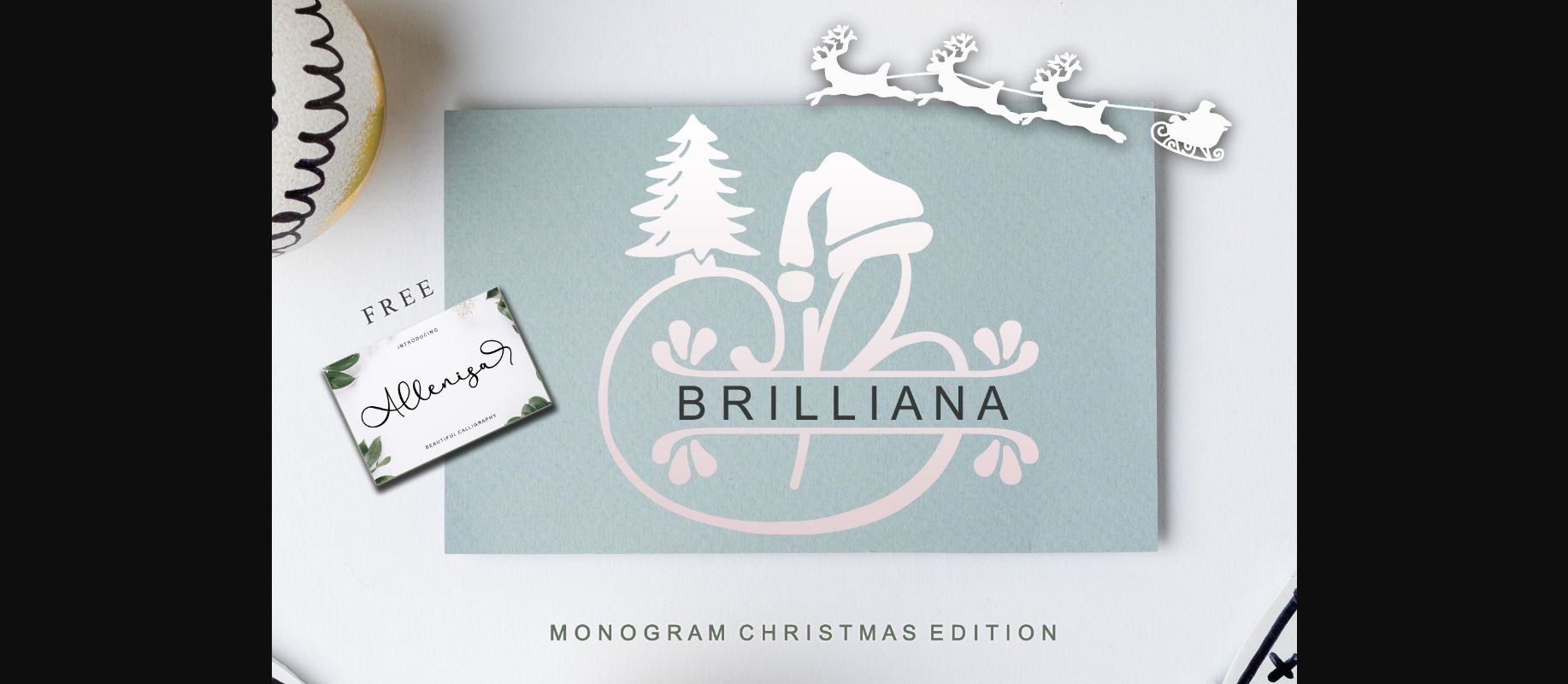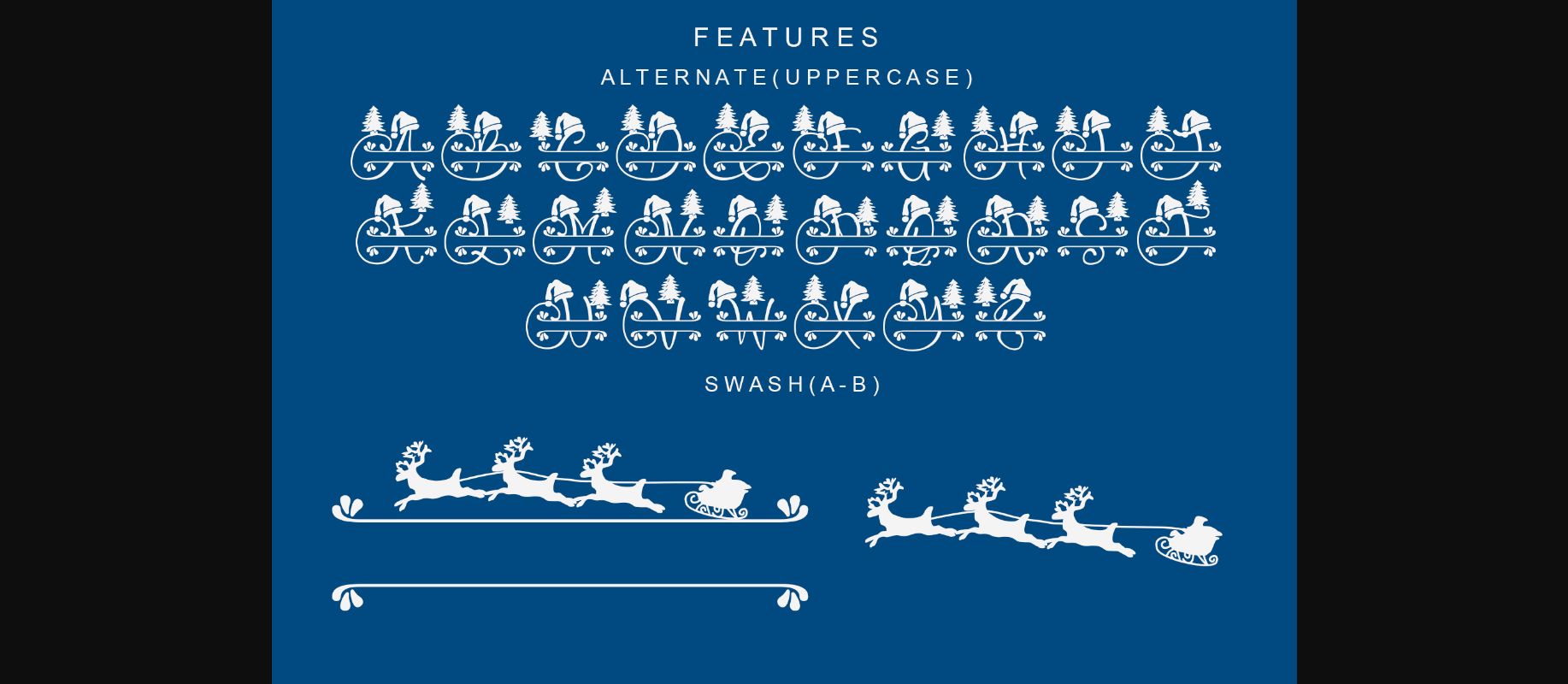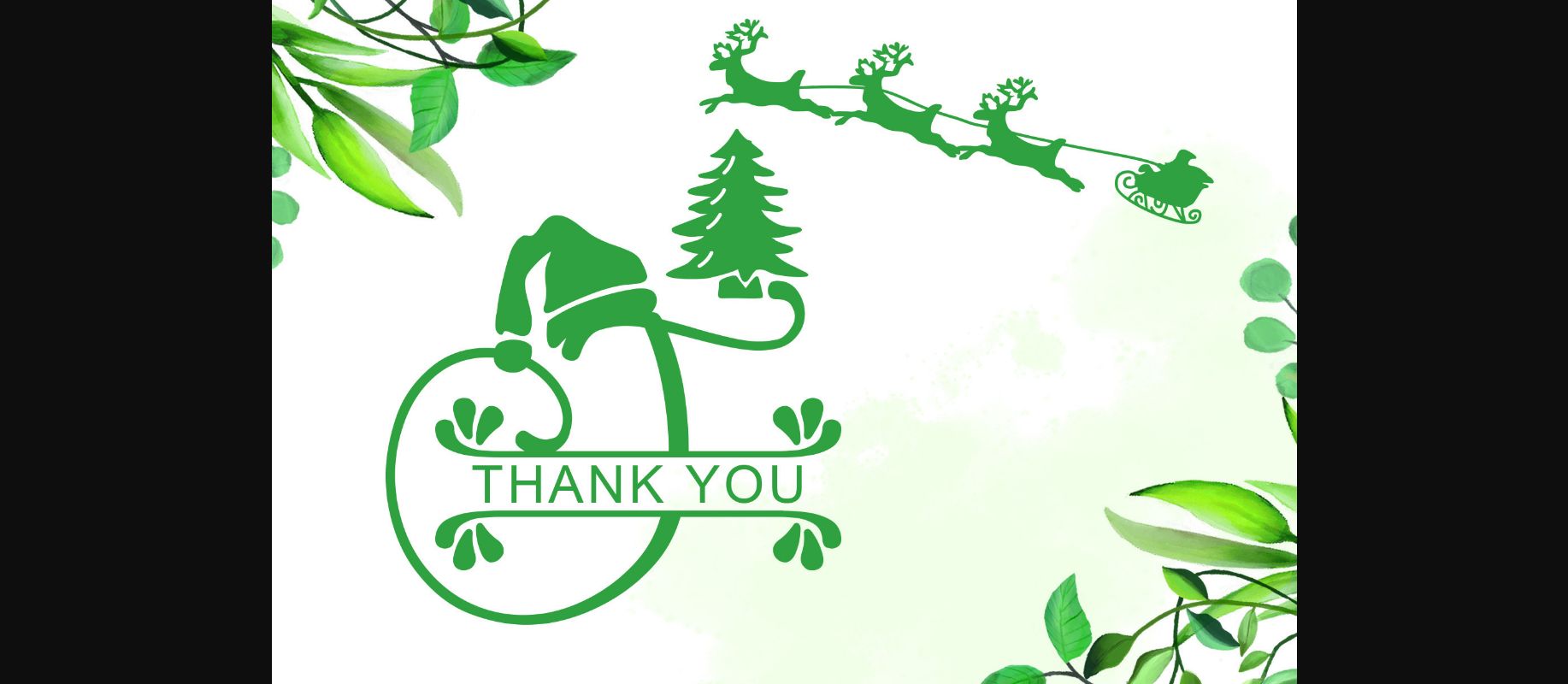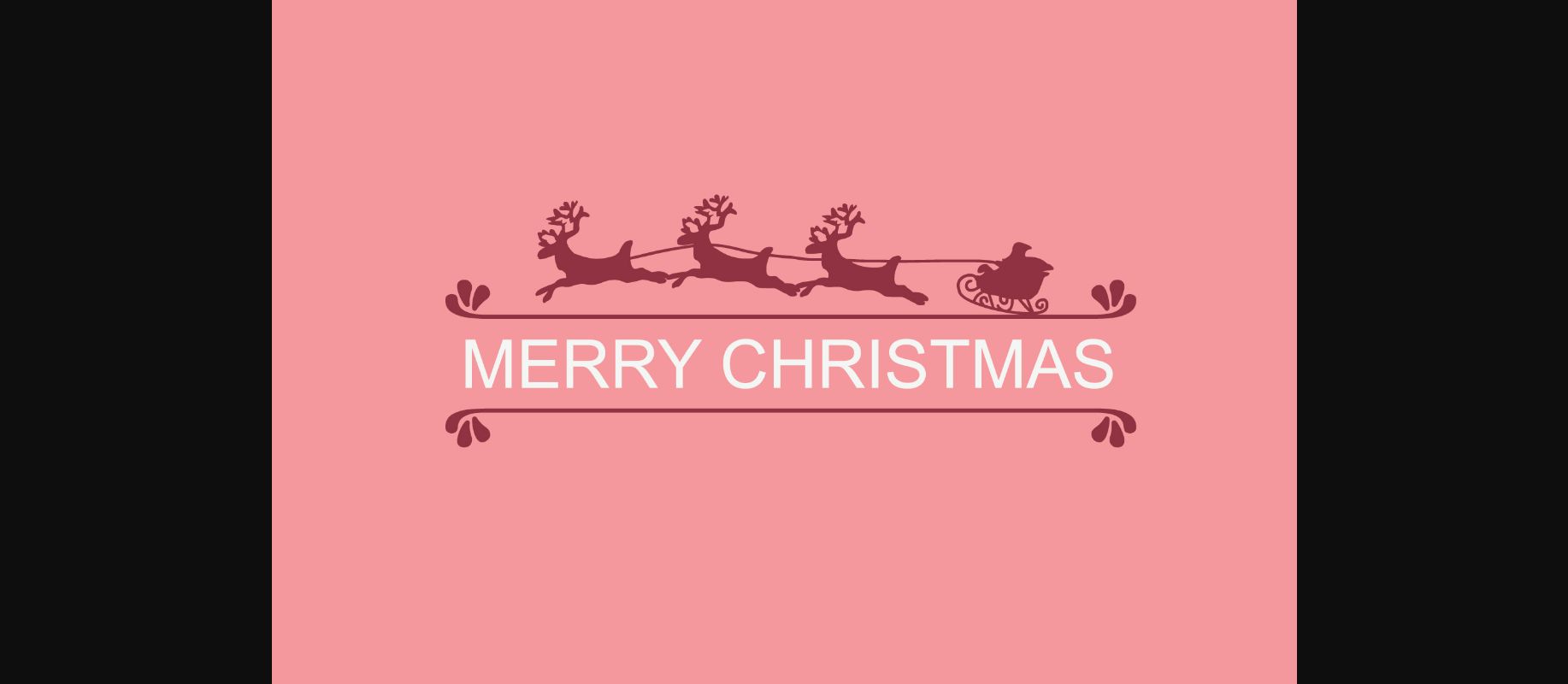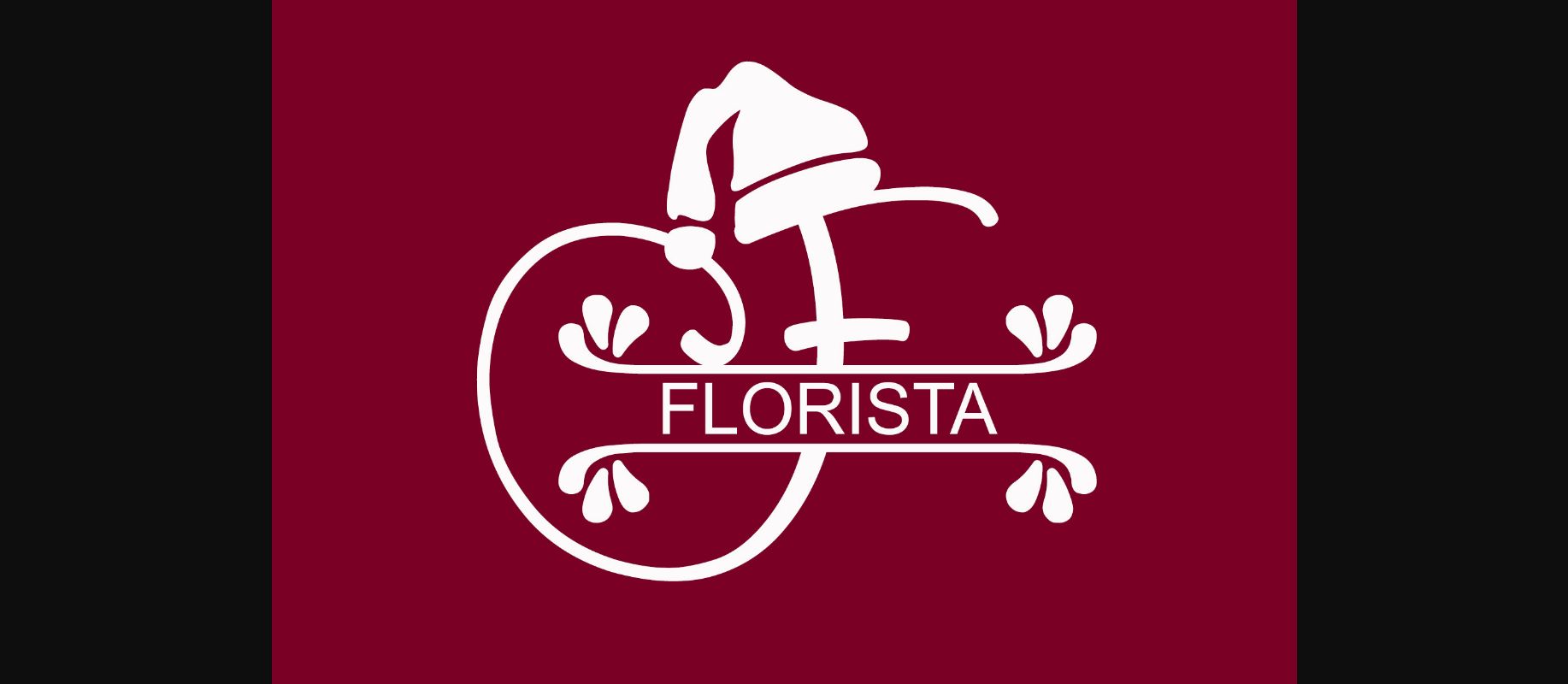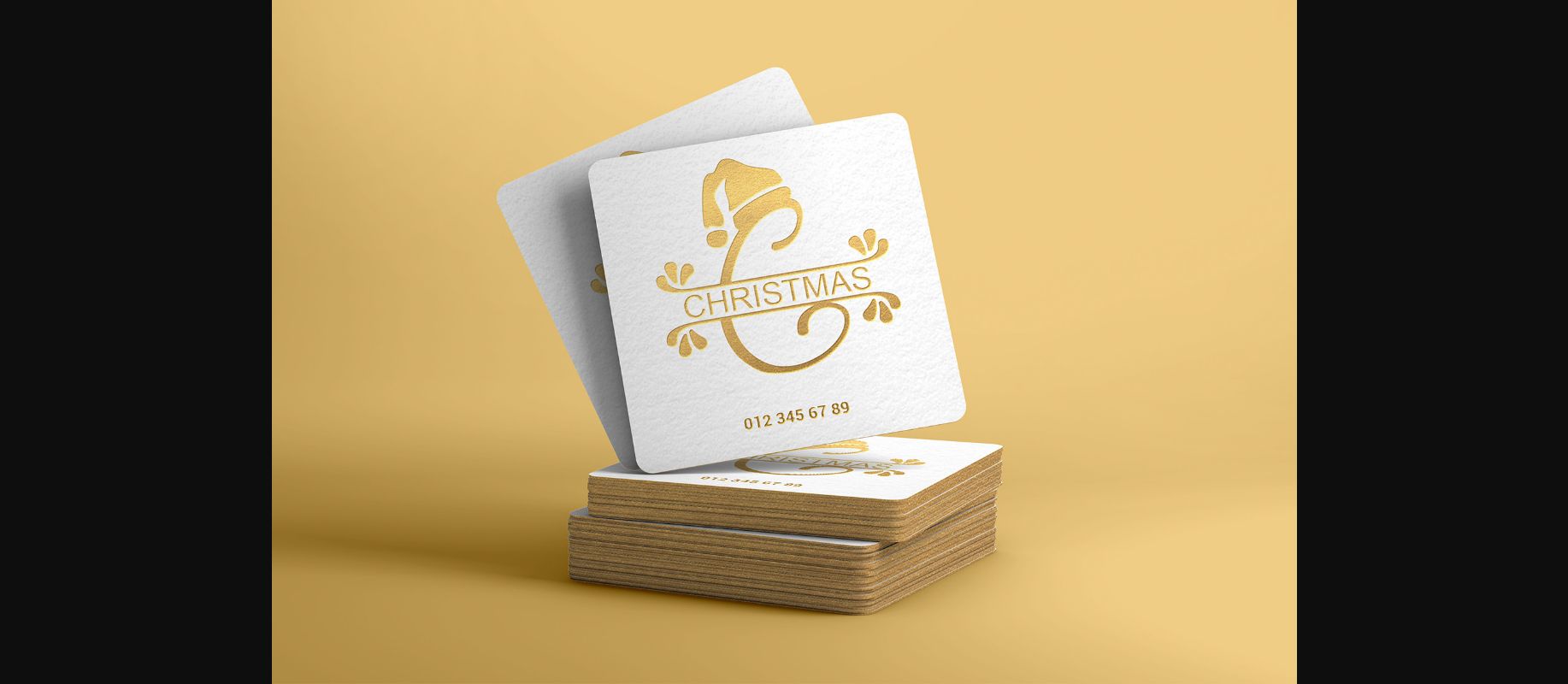
About Brilliana Monogram Font
Brilliana Monogram is a beautiful and warm decorative font. This font is PUA encoded which means you can access all of the glyphs and swashes with ease!